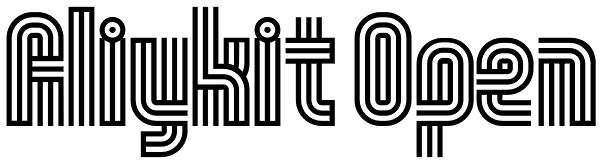
Aliykit Open
Aliykit Open a decorative OpenType font generated from geometry with parallel lines of open and closed forms, by the way they can fit inside the Art Deco style but is part of the design influence of Venezuela in the area of art and cinetic art, his...
Aliykit Open
Aliykit Open Italic